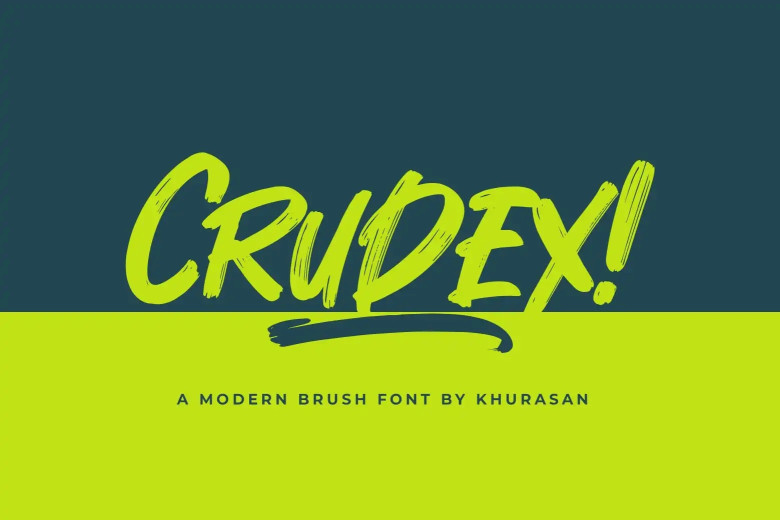
Crudex Font
Crudex is an eye-catching brush typeface ideal for posters, magazine covers, bookcovers, banners and more! Add this handwritten font to your designs to see it stand out in bold contrast! Use Crudex across a variety of projects for maximum impact!
Crudex Bold Brush Font